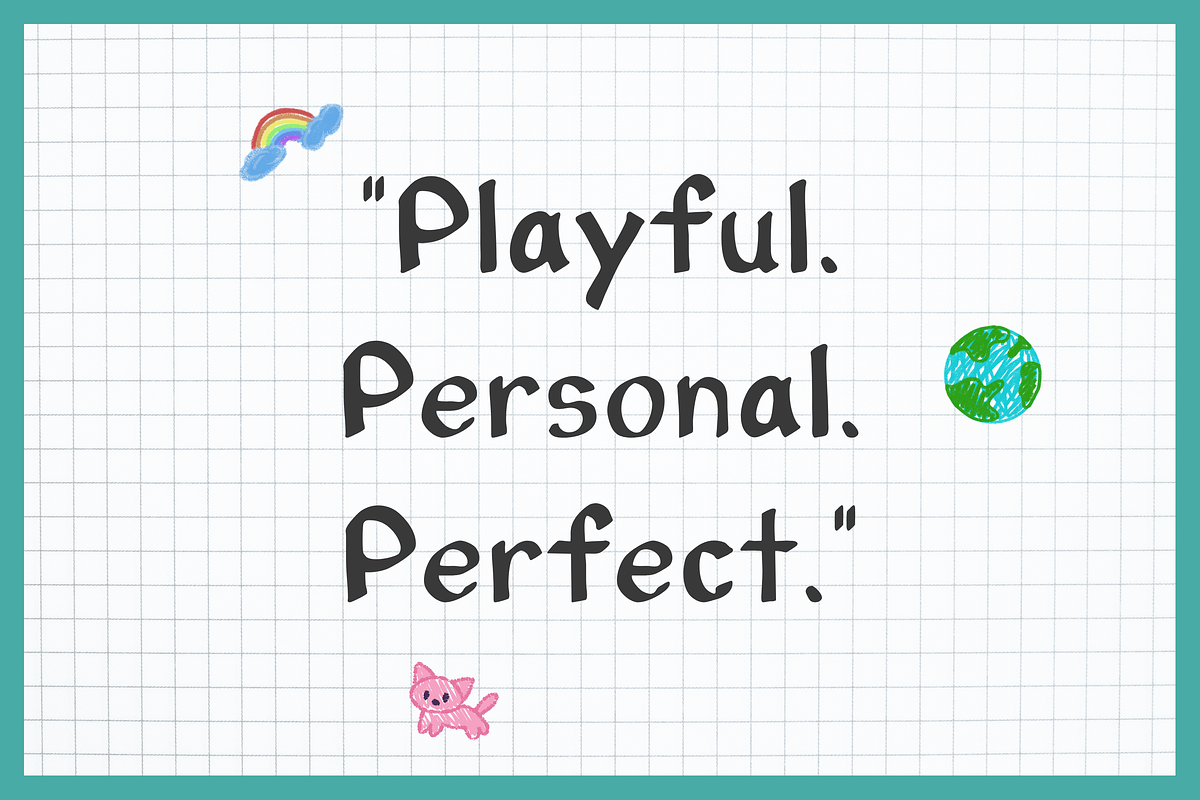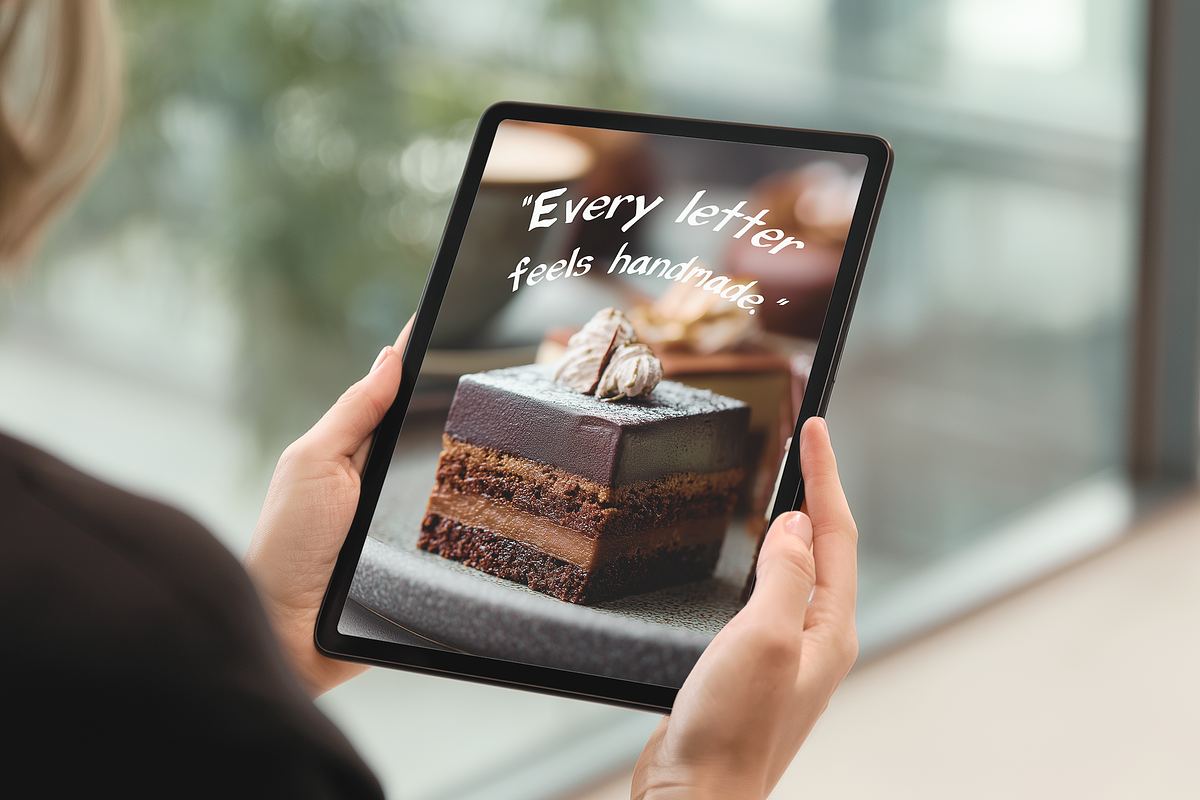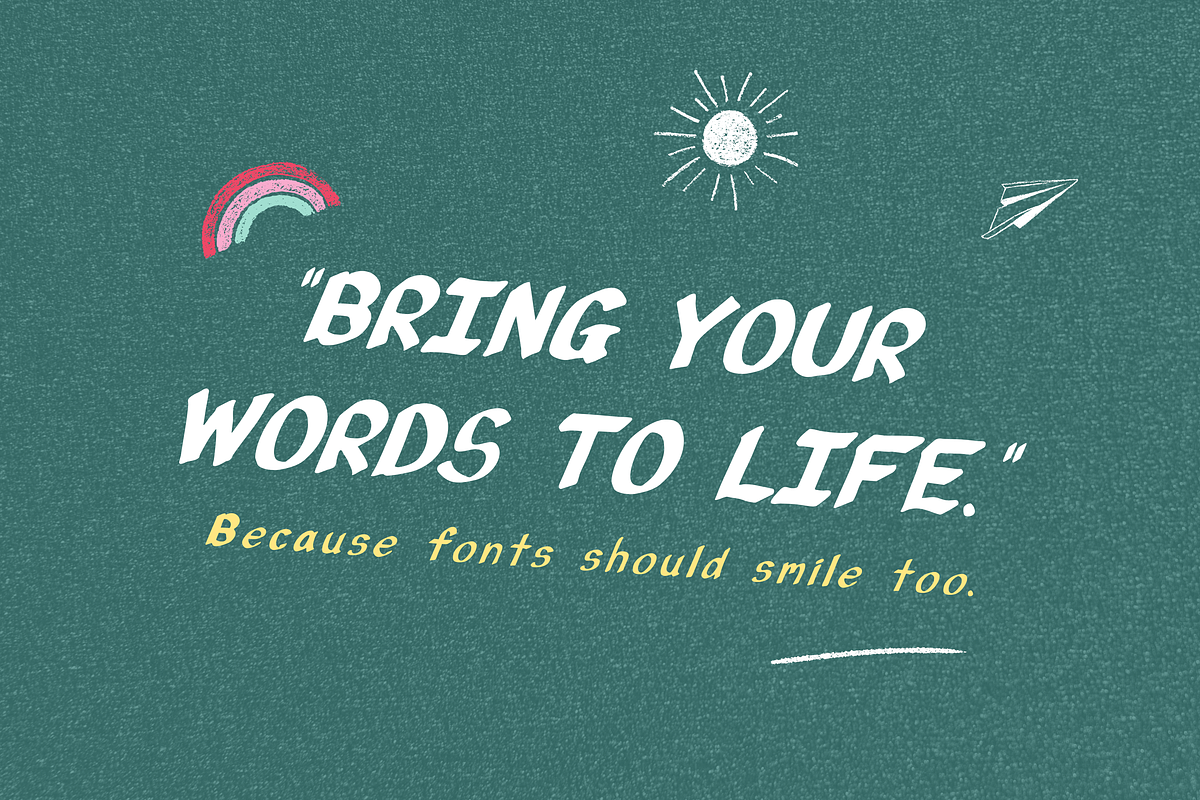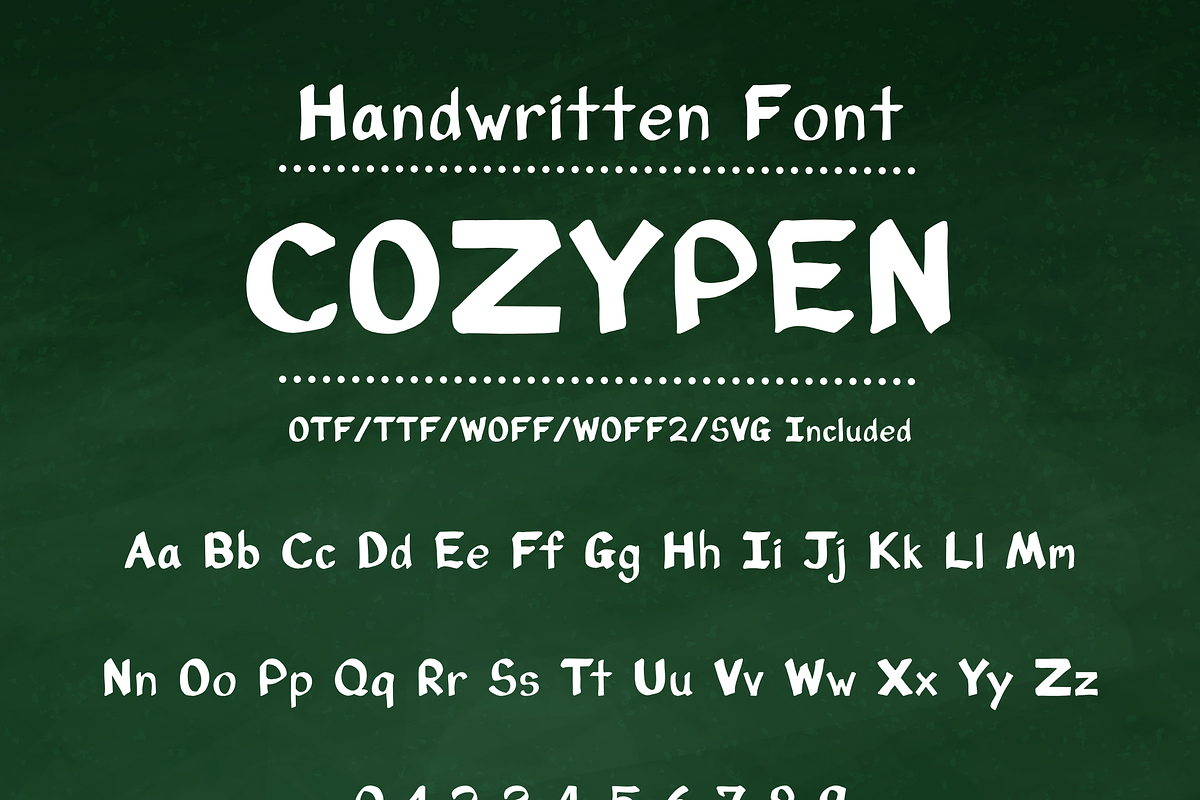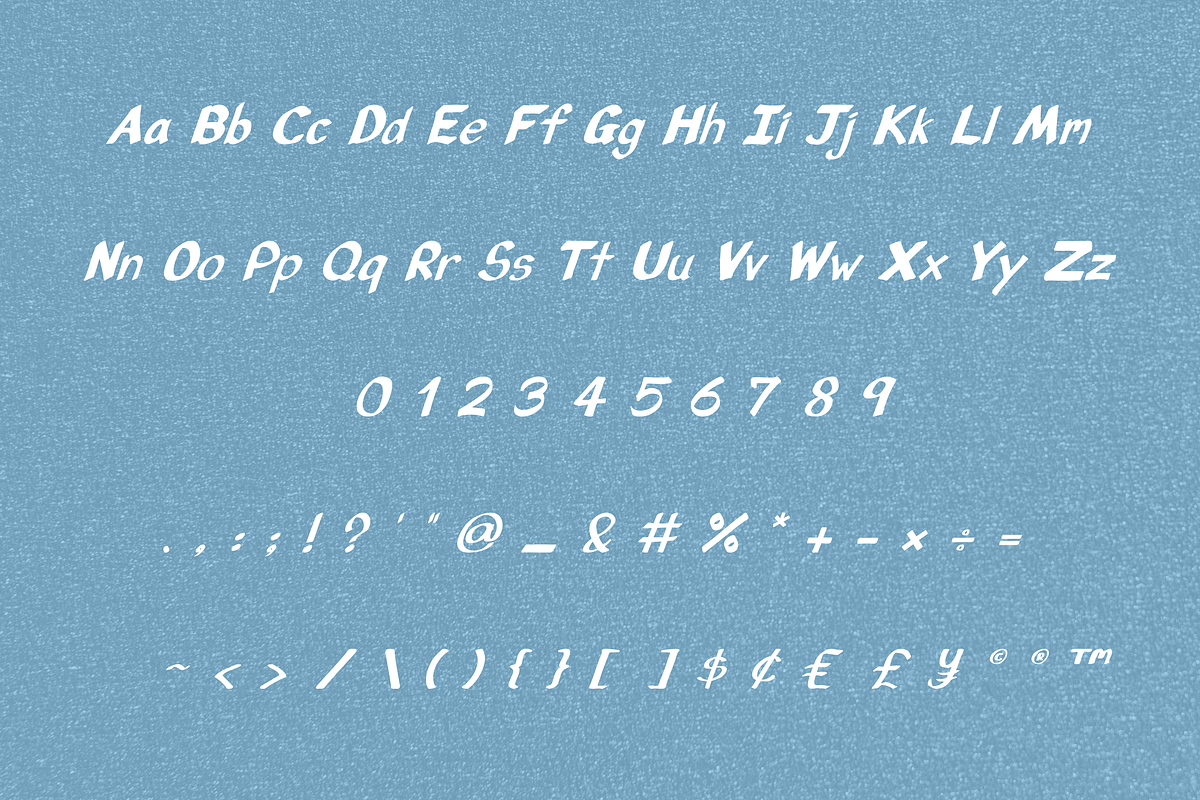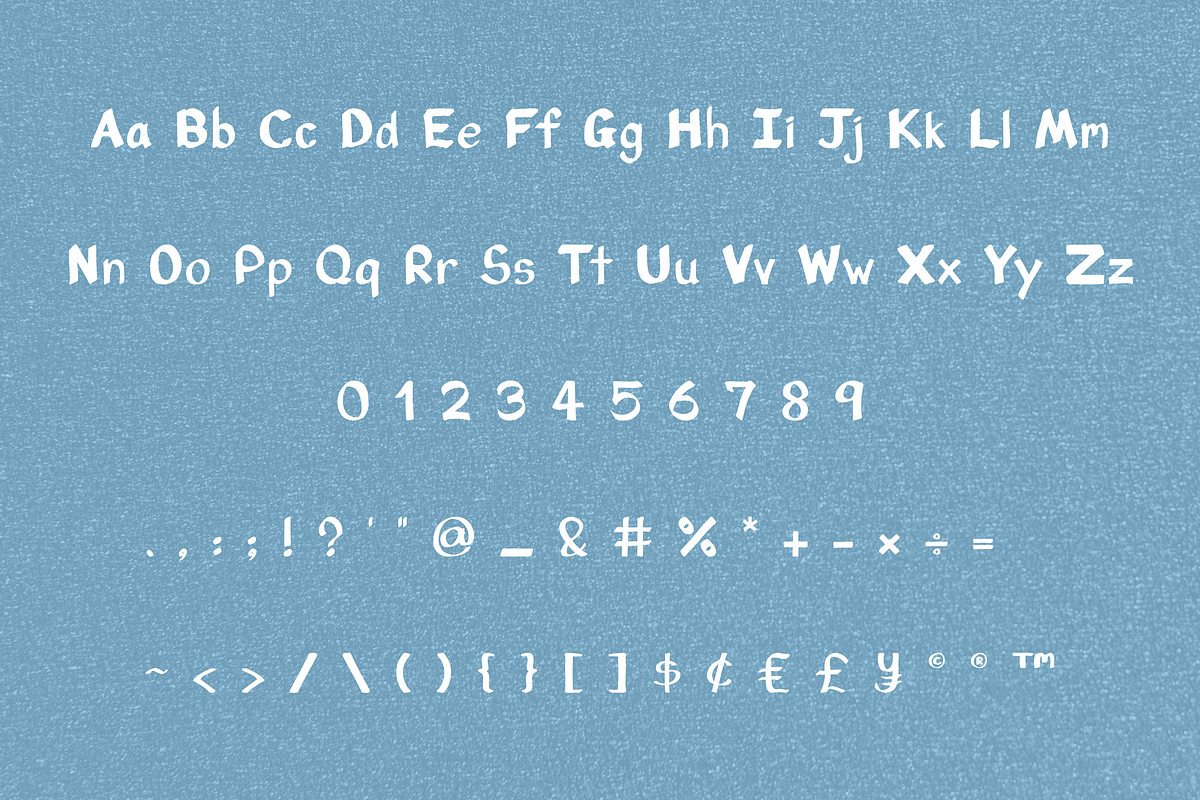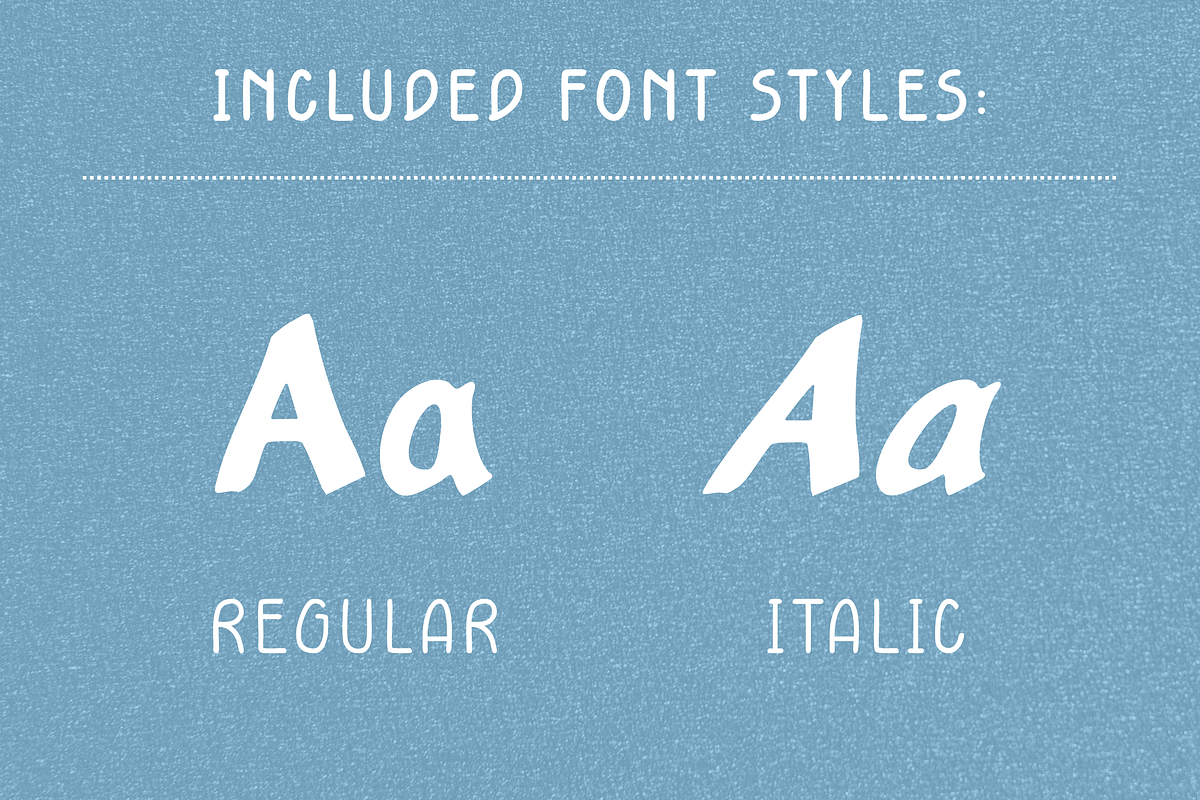
CozyPen - Handwritten Font
CozyPen – A Handwritten Font Full of Charm and Character! ✍️🍎
Bring a warm, whimsical touch to your designs with CozyPen, a handcrafted font inspired by playful handwriting. Perfect for teachers, crafters, creators, and designers looking to add personality to their projects!
Whether you're designing for the classroom, creating cute printables, or making standout social media graphics, CozyPen fits beautifully.